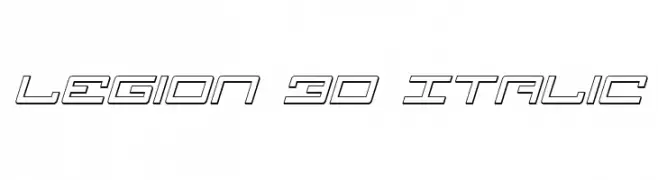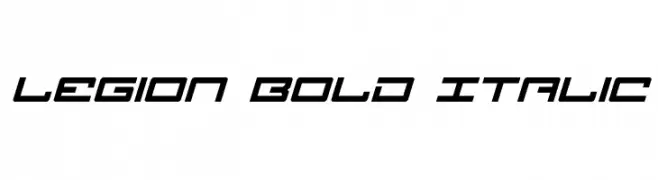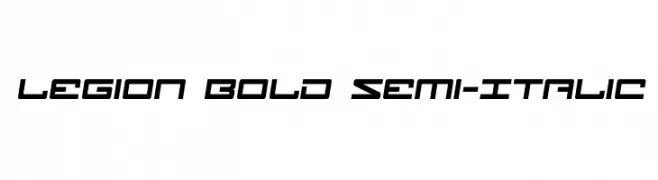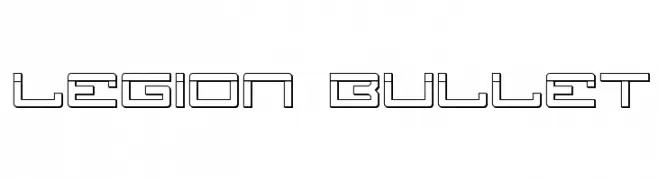
A bold, geometric font with a futuristic and industrial style.
A bold, italic font with geometric shapes and strong outlines, exuding energy and modernity.
A bold, semi-italic font with a dynamic and futuristic design.
A bold, geometric font with a modern, industrial style.
A bold, italicized font with a futuristic and dynamic design.
A futuristic, geometric font with outlined letterforms and a tech-inspired aesthetic.
A futuristic, 3D, italicized font with bold geometric shapes and outlined characters.
A bold, italicized font with a futuristic and dynamic style.
A bold, semi-italic font with a futuristic and geometric design.
A futuristic, geometric font with bold, angular lines and a hollow structure.